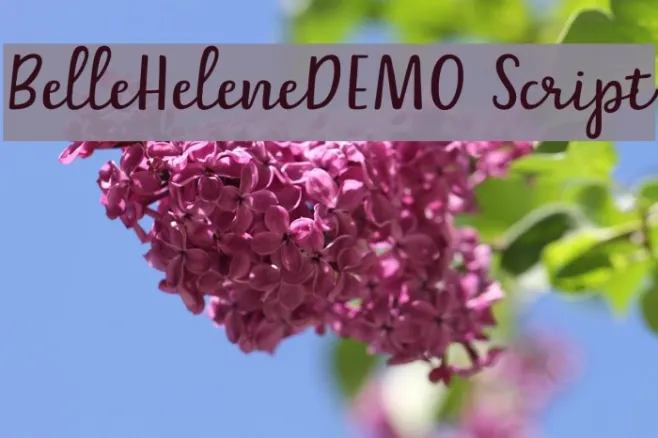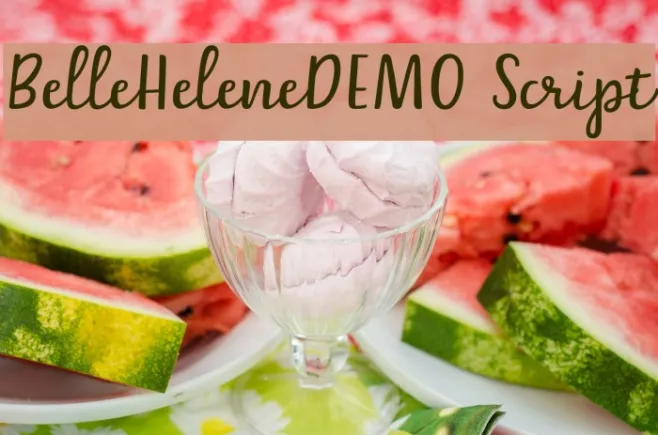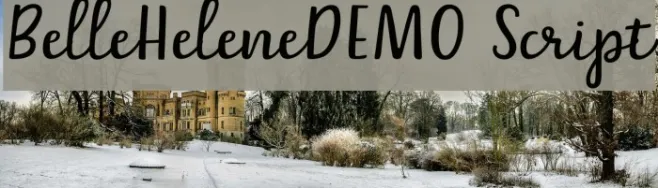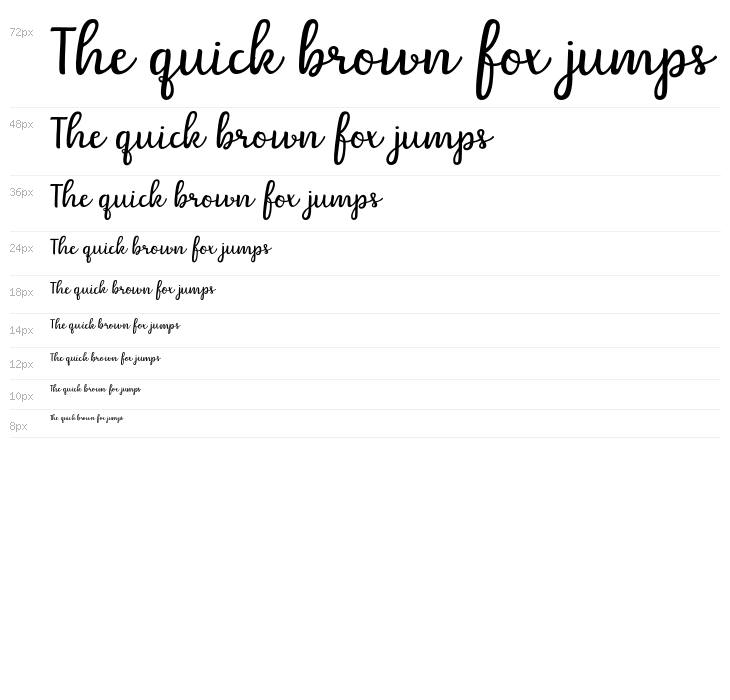
Belle-Helene-DEMO Script Font
Belle-Helene-DEMO Script Description
This font features a charming and fluid script style that combines elegance with a casual feel. The uppercase letters are bold and slightly condensed, giving a strong presence, while the lowercase letters are more flowing and connected, reminiscent of traditional cursive handwriting. The strokes are smooth with a consistent weight, providing a harmonious look. The font lacks special characters, focusing on a clean and straightforward alphabet presentation. Its overall appearance is both modern and approachable, making it suitable for a variety of design needs.
| Use Case | Logos, Invitations, Social media graphics |
| Proposed Projects | Ideal for wedding invitations, greeting cards, branding projects, and social media graphics. |